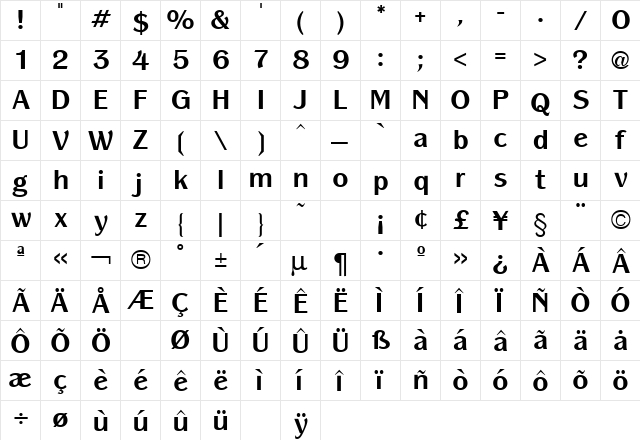
Panache Bold
Design Context for Panache Typeface
Panache takes a measured approach to typography — its balanced proportions and neutral character make it a reliable workhorse for both digital and print work. The heavy weight commands attention and anchors typographic hierarchies.